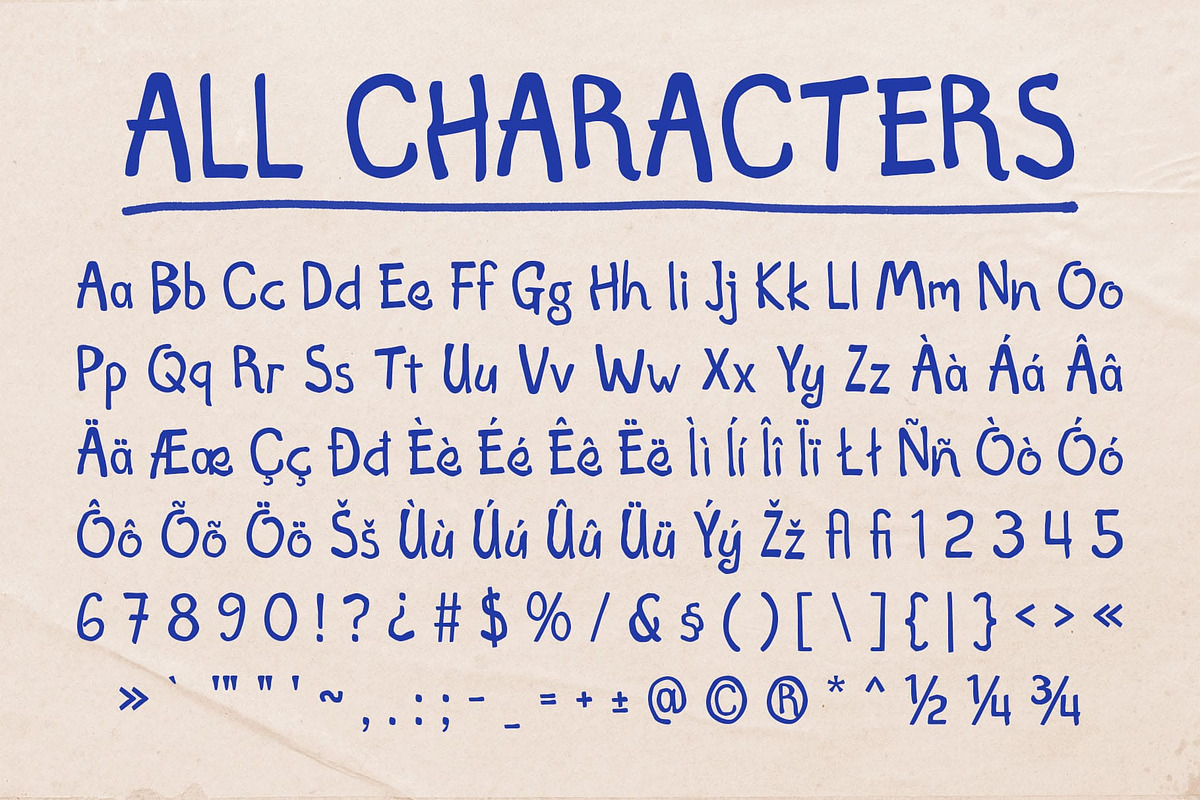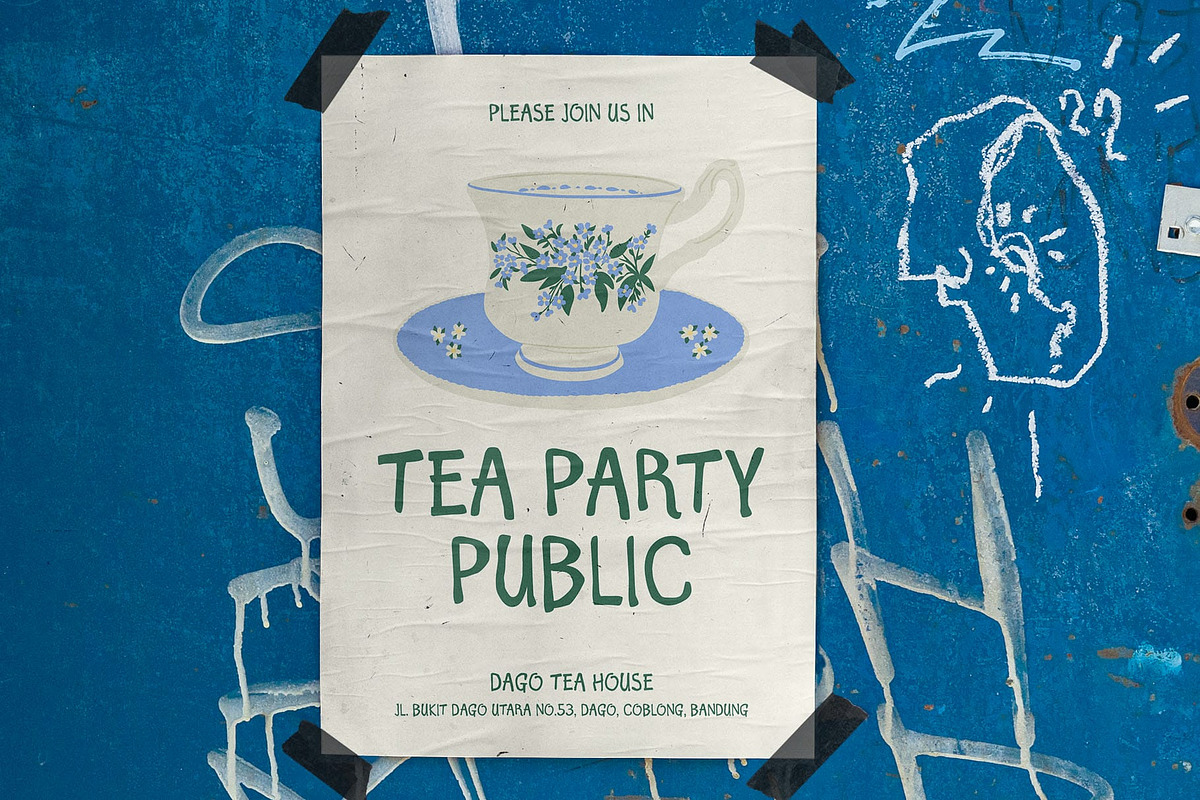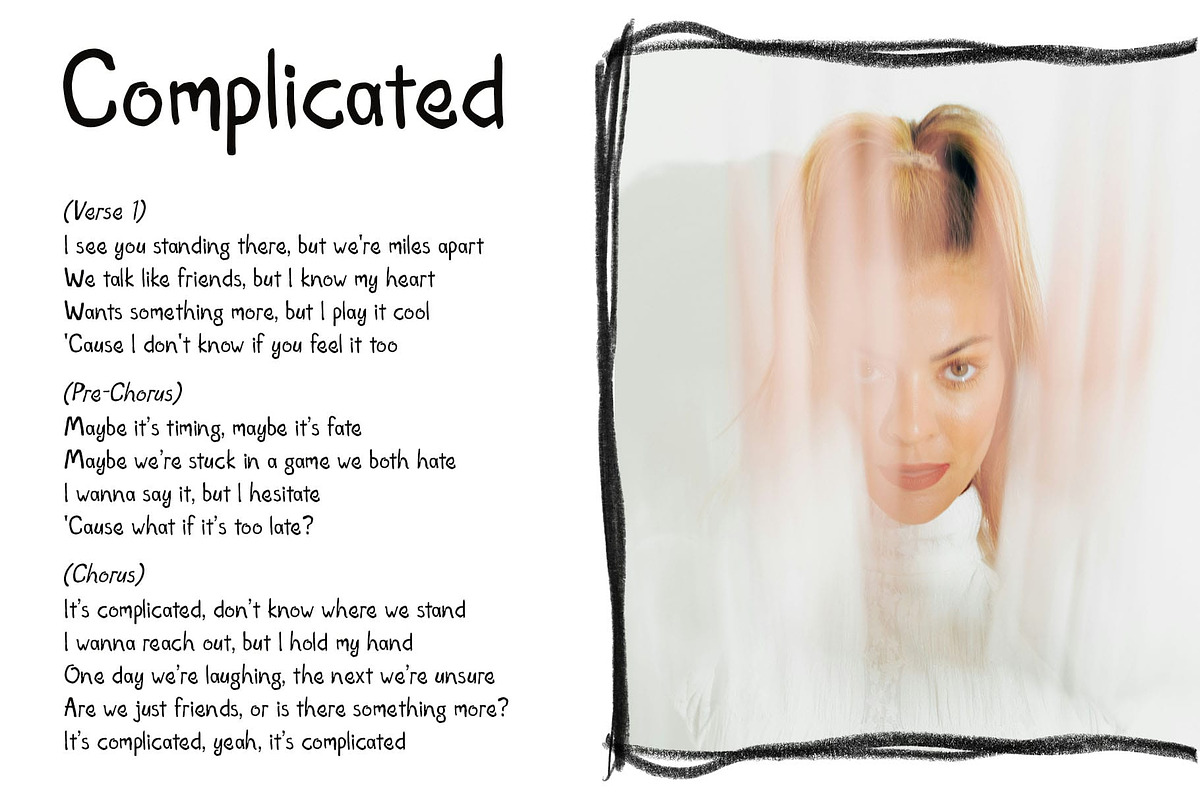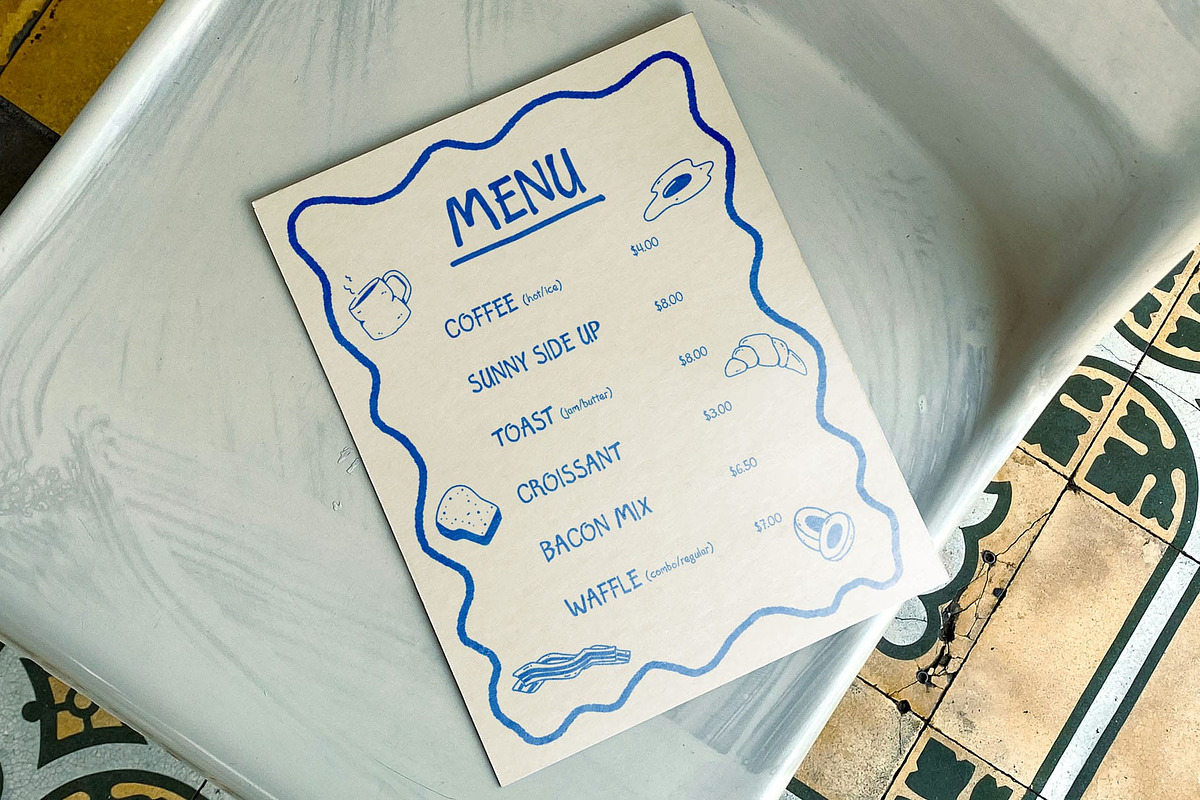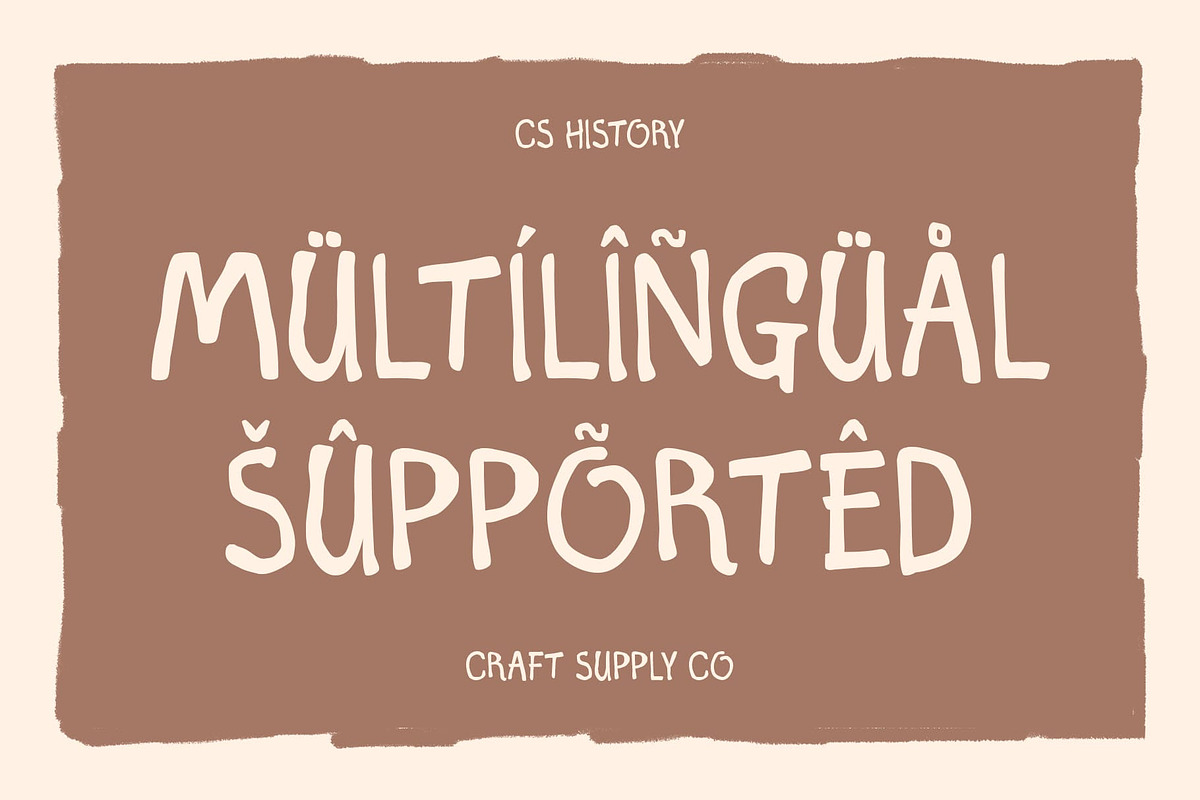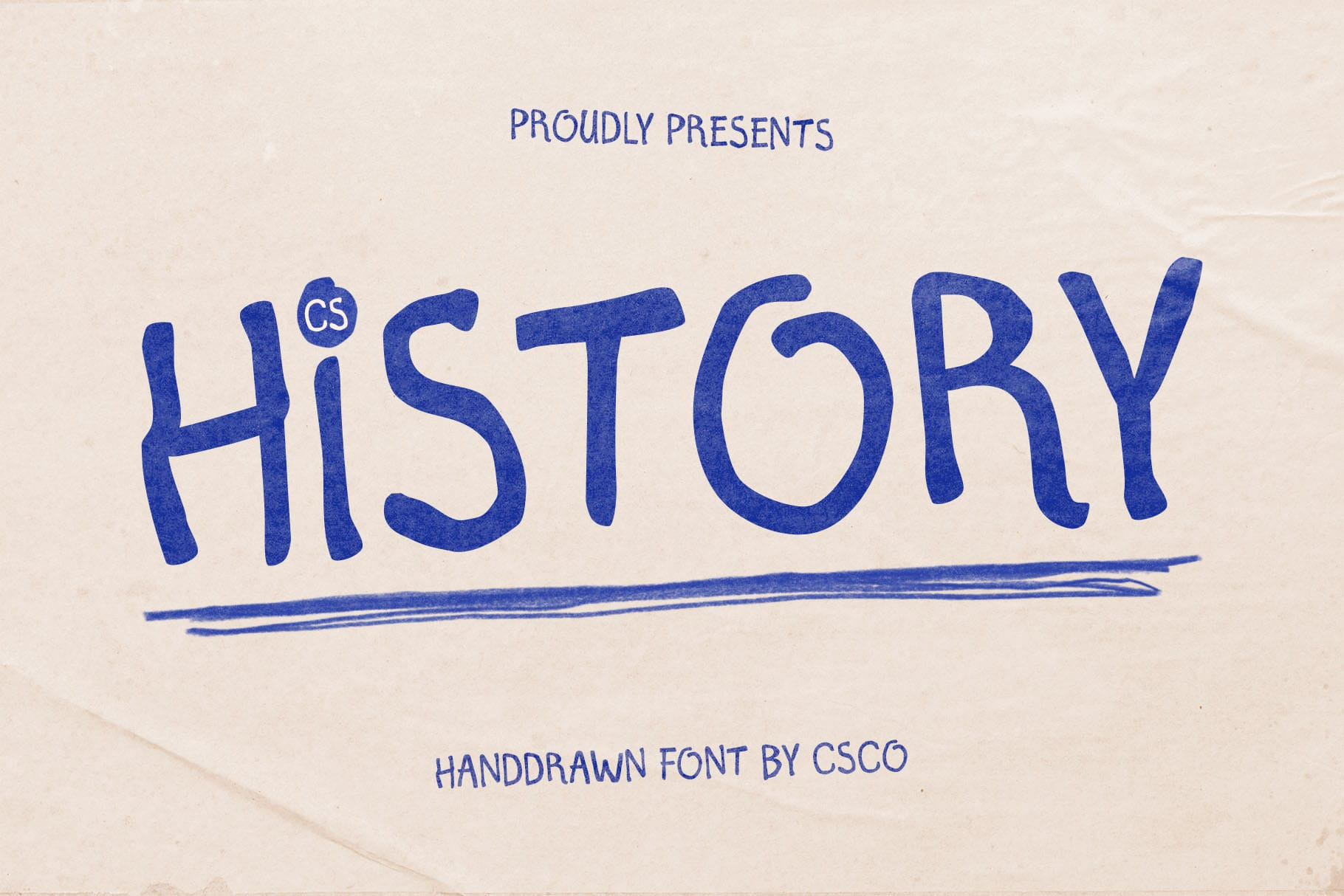
CS History – Etchy Font
CS History Font: A Raw and Expressive Etchy Font
Hand-Sketched Display Font with an Edgy Appeal CS History is a display etchy handwritten font that embraces imperfection, spontaneity, and artistic expression. Featuring rough, uneven strokes and organic sketch-like details, this font has a bold, raw, and energetic aesthetic. It captures the essence of hand-drawn creativity, making it ideal for designs that stand out with an unrefined and expressive touch.
Dynamic, Funky, and Full of Personality With its irregular, freeform structure, CS History exudes a funky and unconventional vibe. The scribbled, slightly chaotic form adds a sense of movement and individuality, making it a perfect choice for alternative branding, indie posters, experimental typography, and rebellious artistic projects. It’s a font that challenges tradition and embraces boldness.
Perfect for Artistic and Experimental Projects CS History thrives in creative and experimental designs, offering an authentic, hand-sketched feel that enhances grunge, street art, and handcrafted aesthetics. Whether for music festival graphics, underground zines, artistic event promotions, or bold social media content, this font delivers a raw, personal, and captivating visual impact.
Versatile for Alternative and Bold Design Needs Ideal for DIY-inspired branding, edgy editorial layouts, and projects that demand an unconventional look, CS History provides a unique and expressive character. It suits designs that aim to break the rules, evoke raw energy, and highlight artistic freedom.